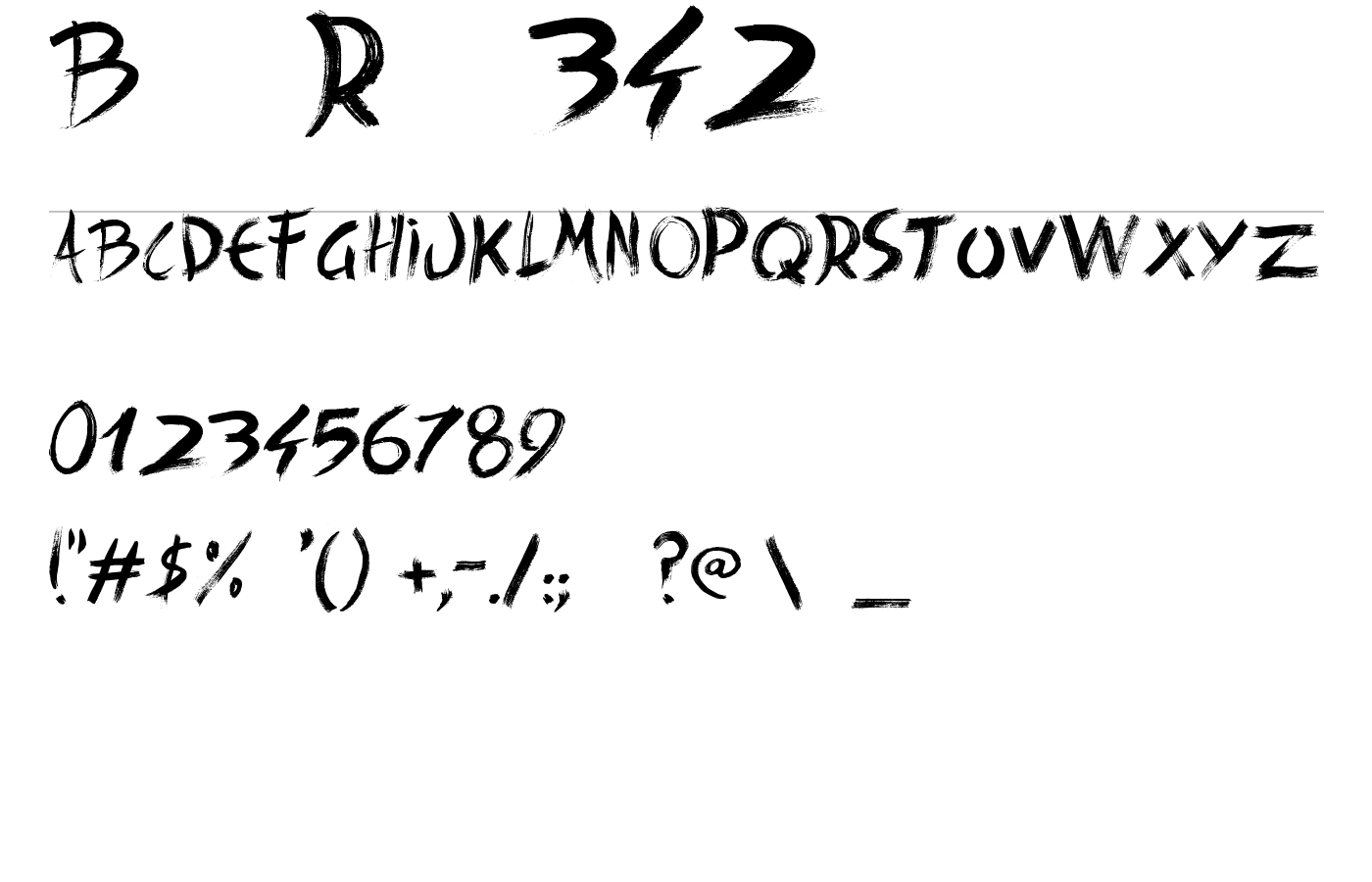
Back Ride 342 is an edgy handwritten font with a dynamic brushstroke style that brings a sense of raw energy and artistic flair. Its tall, narrow letterforms and textured strokes make it ideal for creative projects seeking a bold, expressive look, perfect for posters, branding, or any design needing a unique, hand-crafted vibe. This font conveys personality and movement, making it great for young, adventurous, or unconventional brands.
Back Ride 342 Font